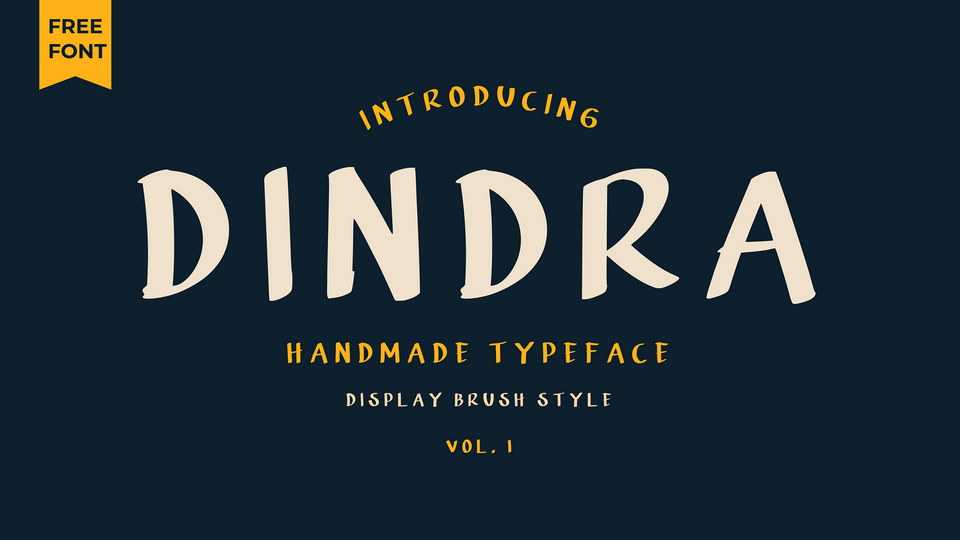
Download Dindra font, a cool hand painted typeface that you are looking for. Made on paper and carefully translated into a font. Great for notes, quotes, crafts and other projects that need organic look.
Designer: Yukita Creative